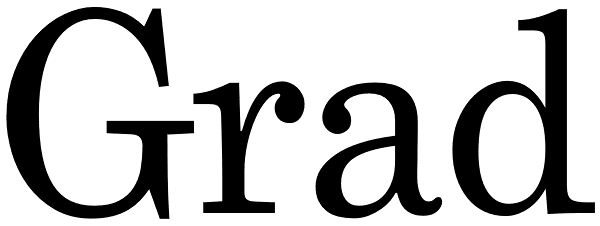
Grad
Phil Martin, creator of over 400 typefaces from the late '60s through the '80s, designed Grad as a redesign of the classic Century Schoolbook for his personal use in the early '90s. Changes both subtle and obvious have been made and many new...